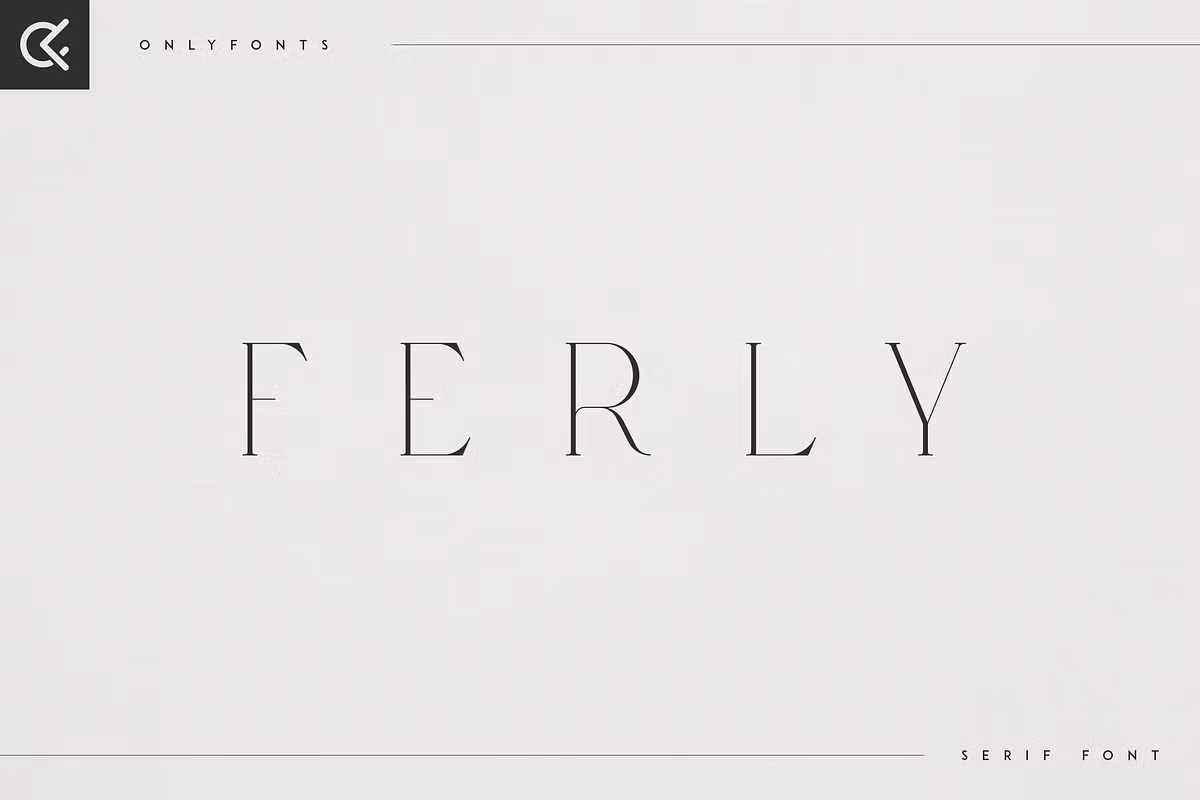
Ferly - Elegant Serif Font Free Download is a sophisticated and stylish serif typeface designed with elegance and readability in mind. With its refined serifs, clean lines, and graceful proportions, Ferly is perfect for high-end branding, luxury product packaging, wedding invitations, editorial design, and any project that requires a polished, classic look.
Ferly combines timeless elegance with modern simplicity, making it ideal for both print and digital designs. Whether you're creating a sleek logo, a sophisticated magazine layout, or a stylish invitation, this font adds a touch of sophistication and professionalism to your typography.